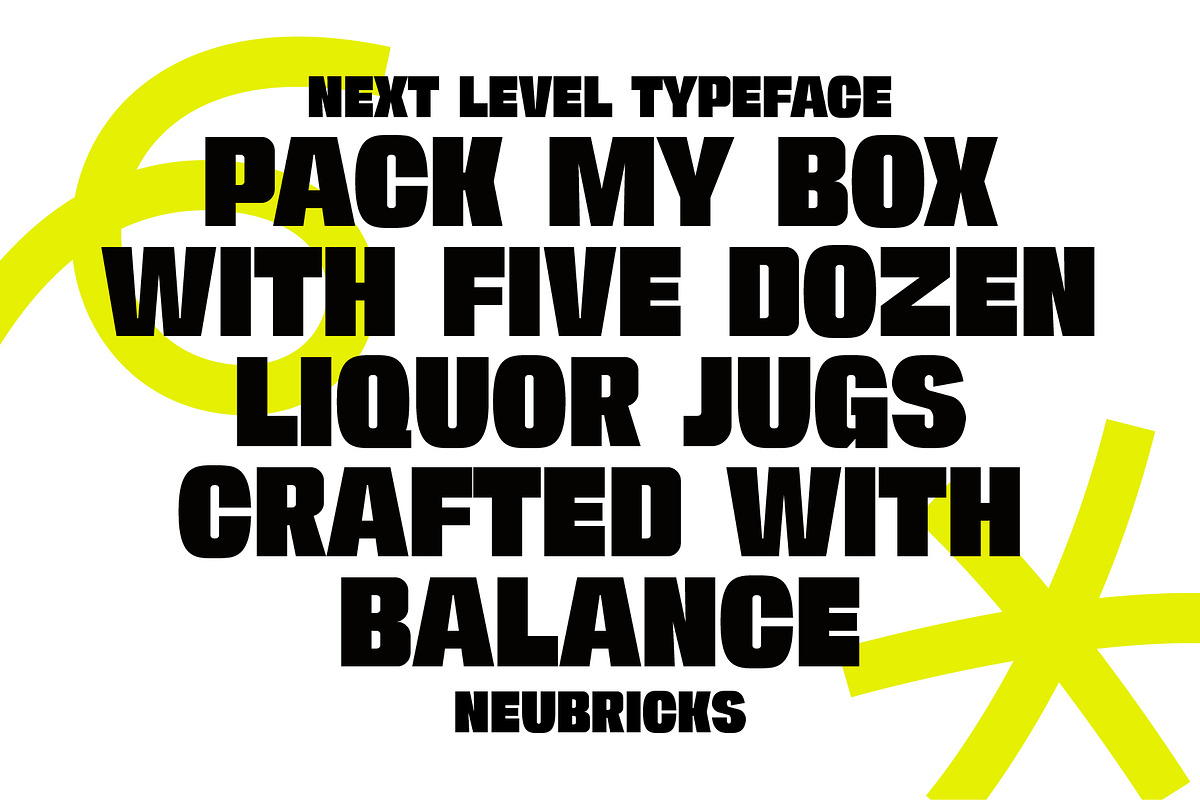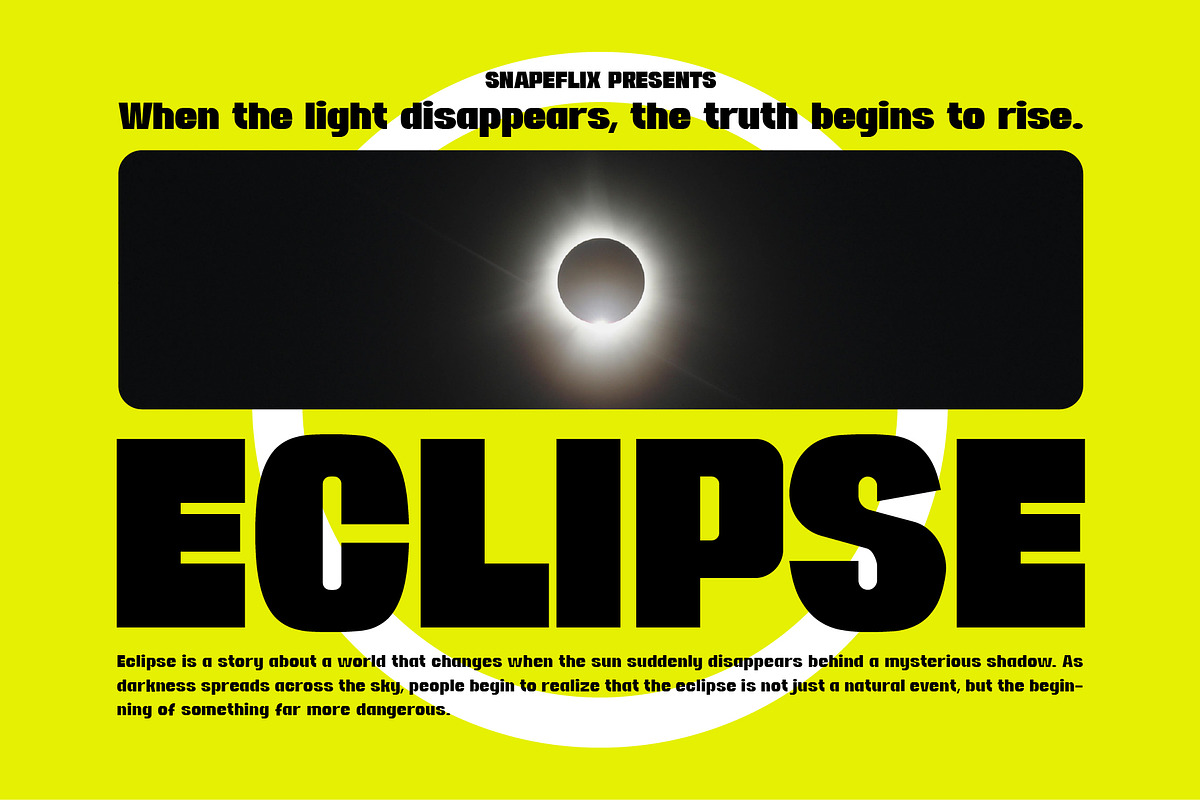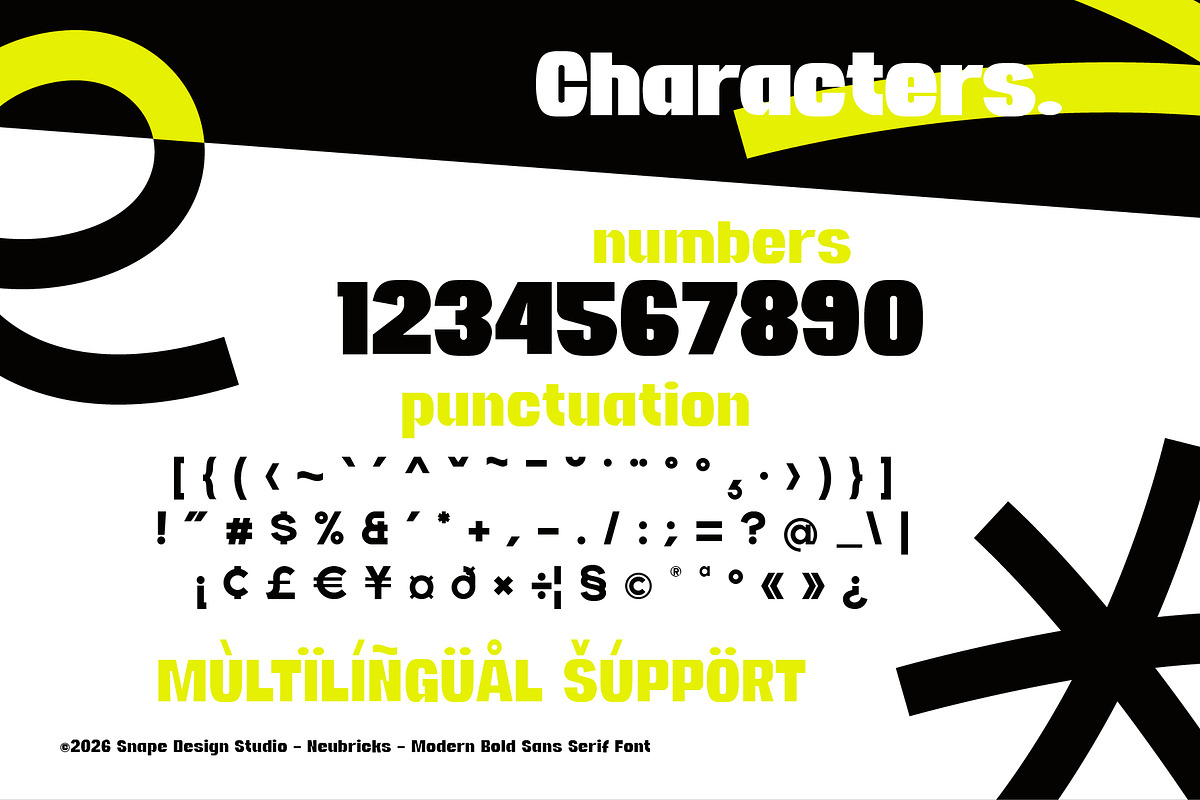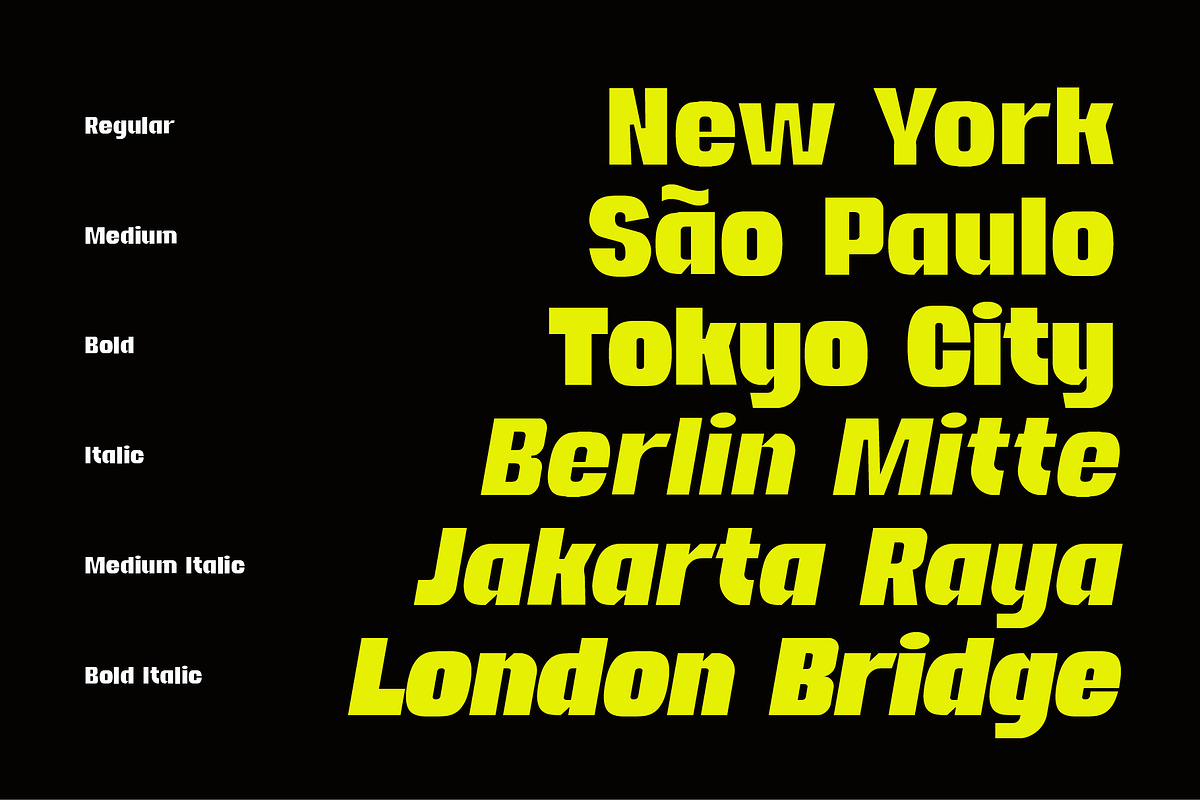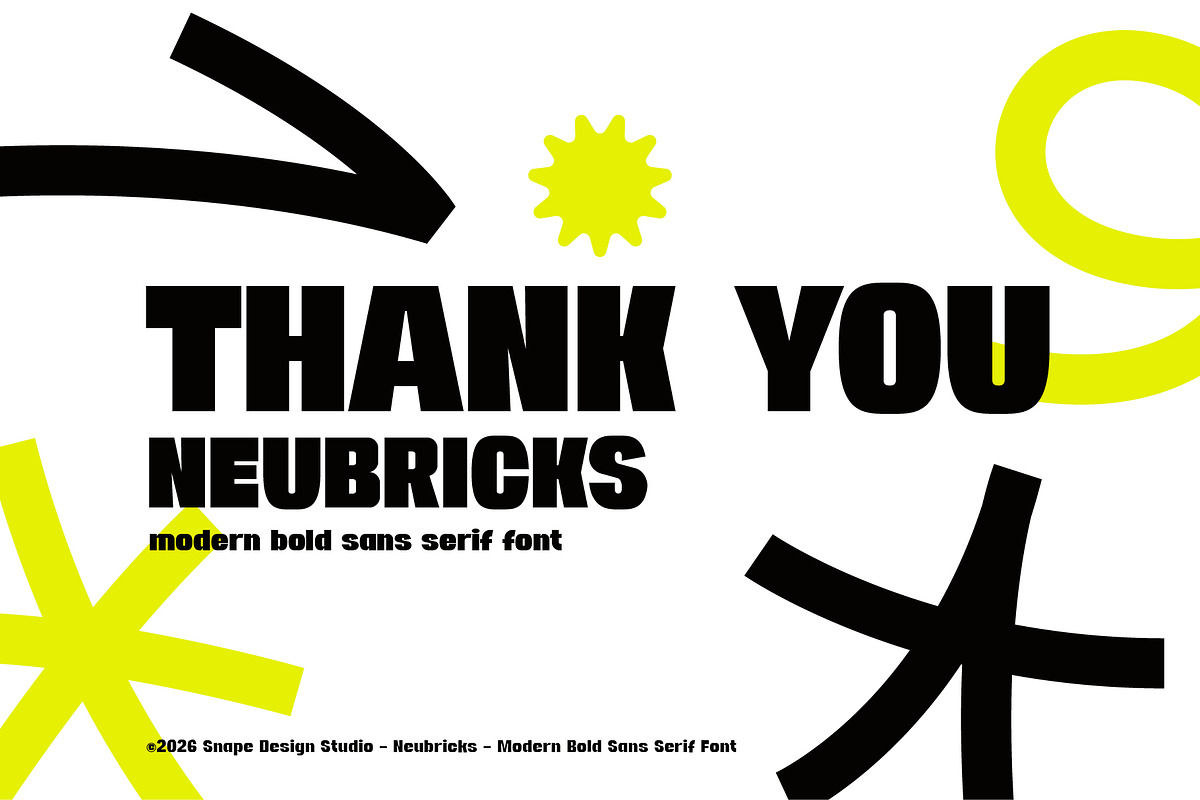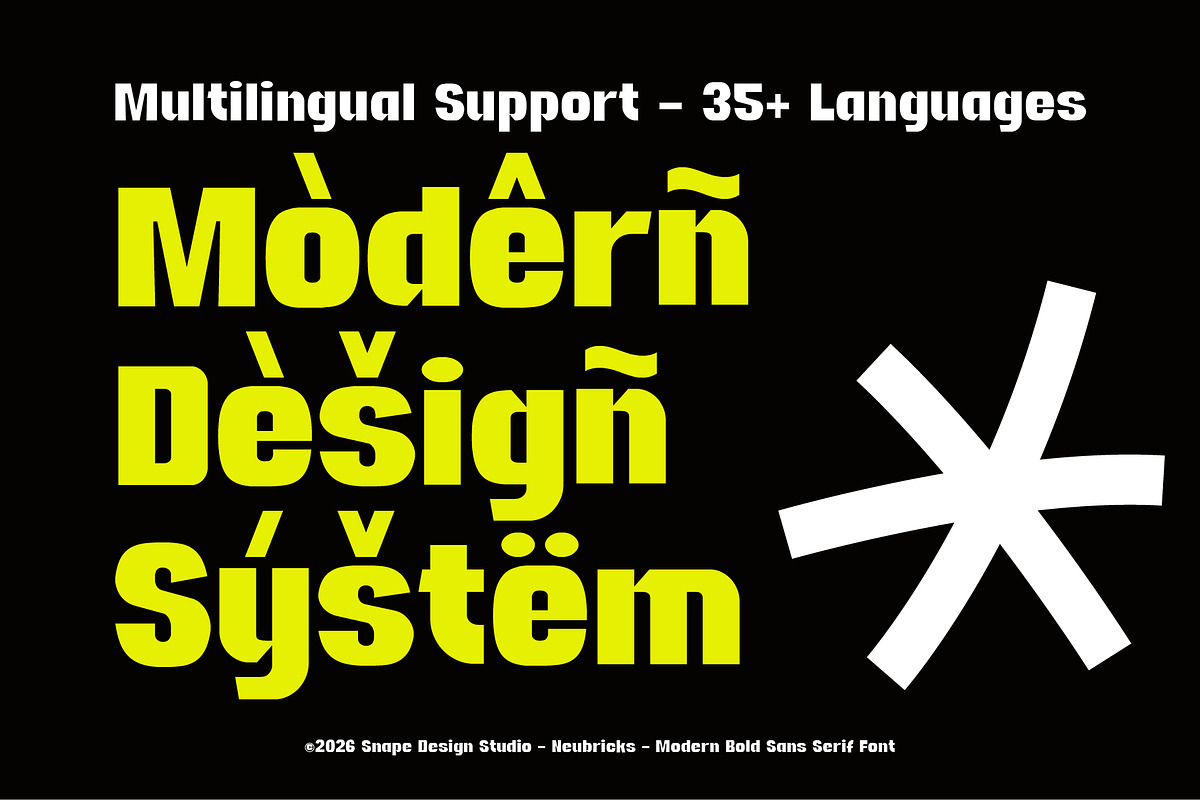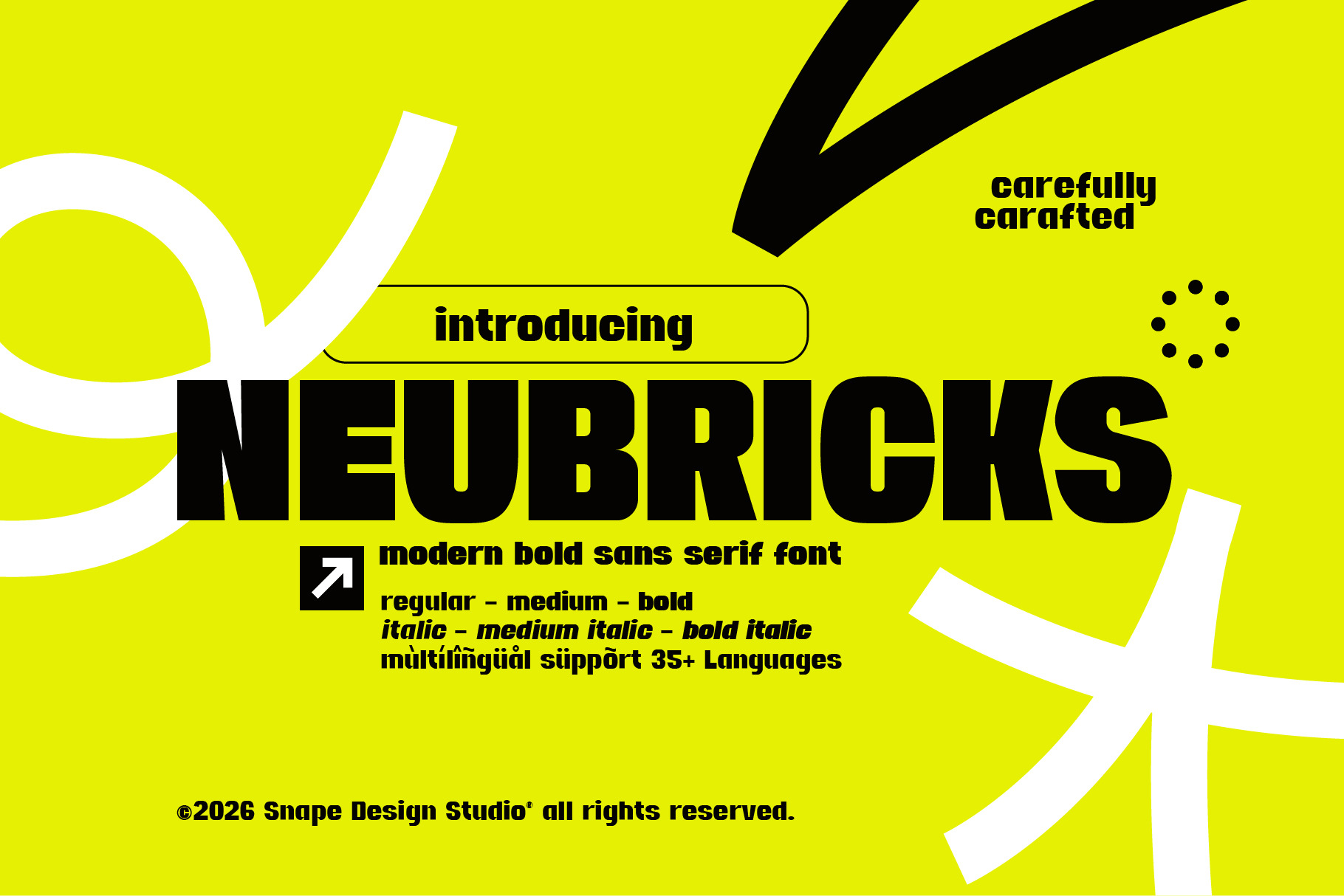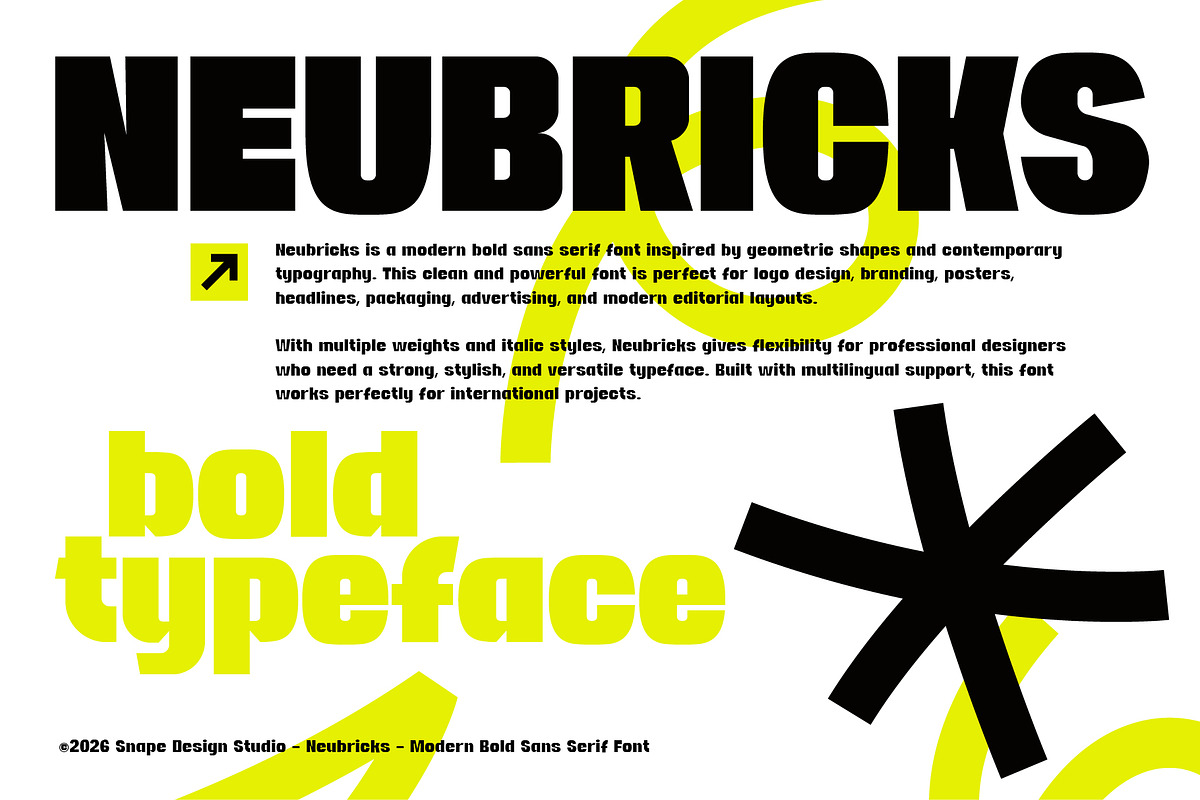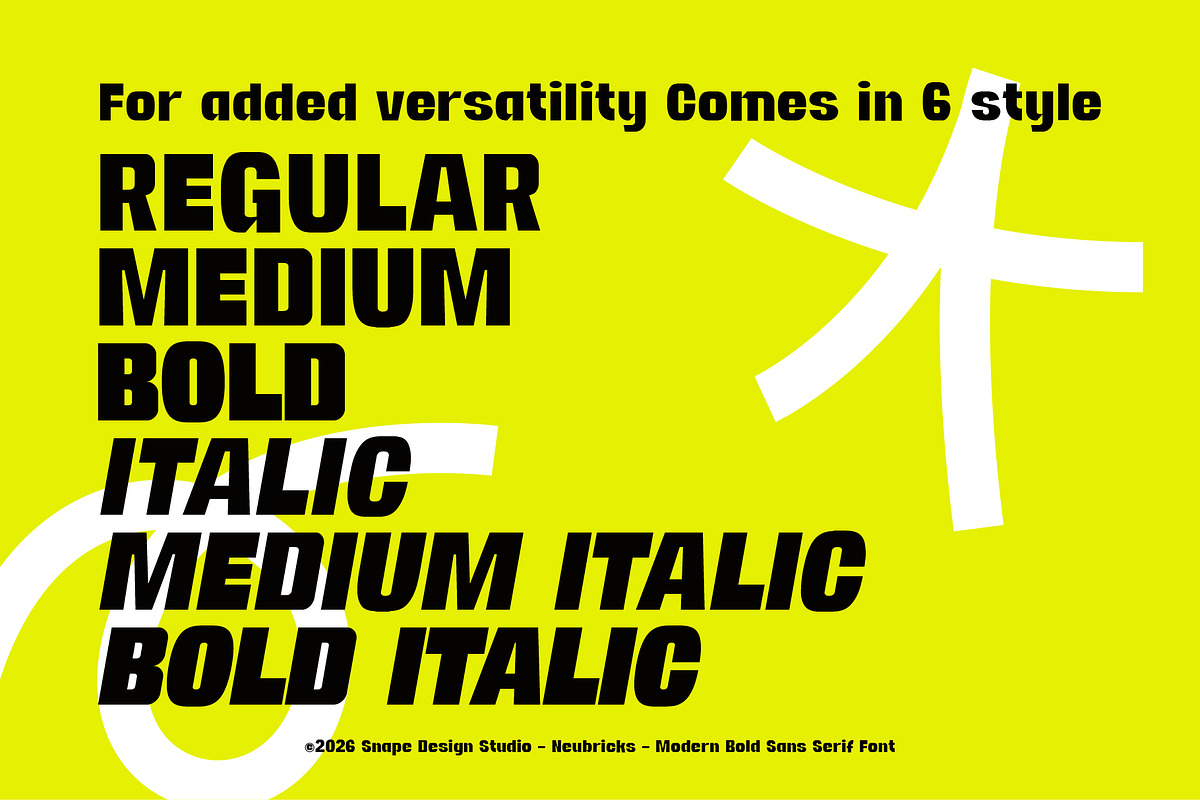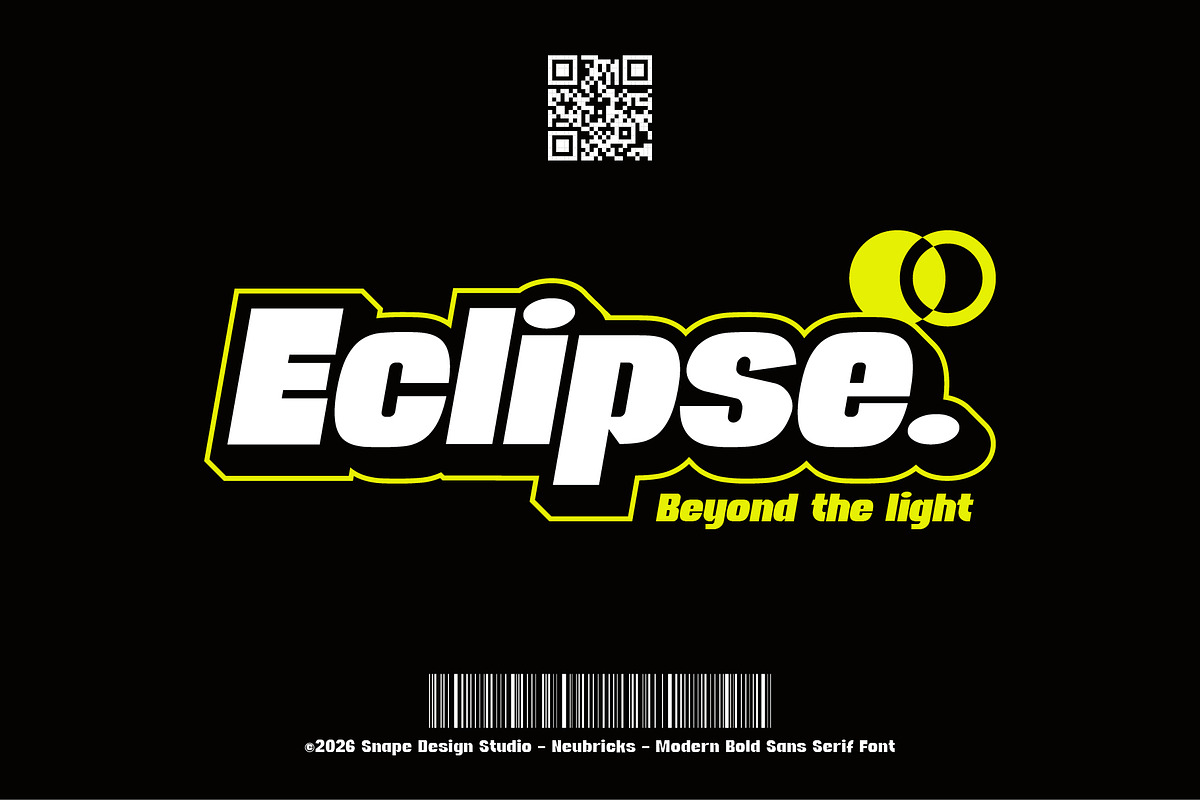
Neubricks - Bold Sans Serif Font
Neubricks is a modern bold sans serif font inspired by geometric shapes and contemporary typography. This clean and powerful font is perfect for logo design, branding, posters, headlines, packaging, advertising, and modern editorial layouts. With multiple weights and italic styles, Neubricks gives flexibility for professional designers who need a strong, stylish, and versatile typeface. Built with multilingual support, this font works perfectly for international projects.
Features: Regular, Medium, Bold & Italic style (OTF & TTF) Clean, bold & modern sans serif style Multilingual support (35+ languages) Uppercase & lowercase Numerals & punctuation Perfect for branding, logo, UI, poster, packaging, and editorial